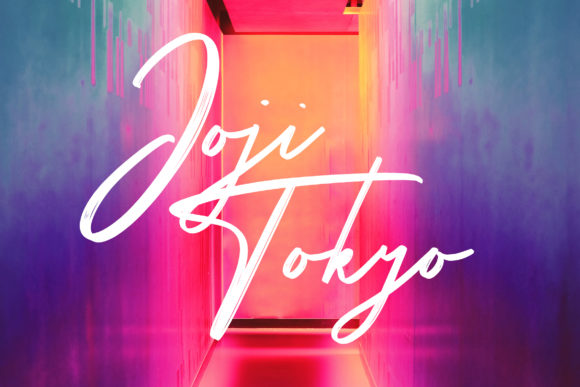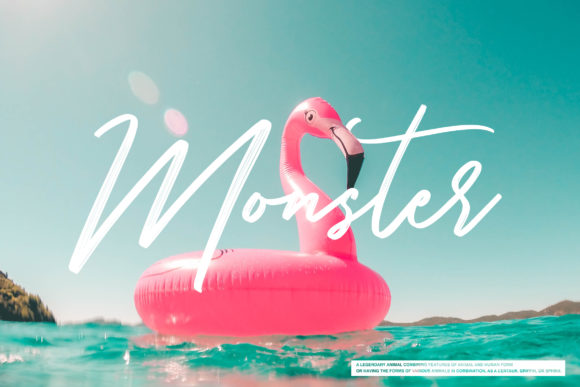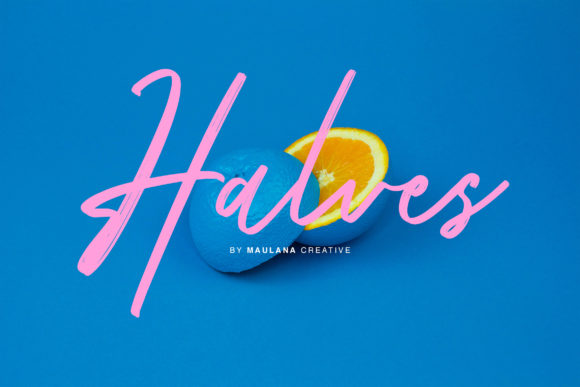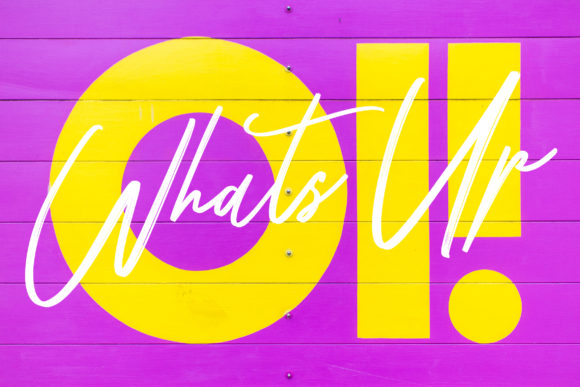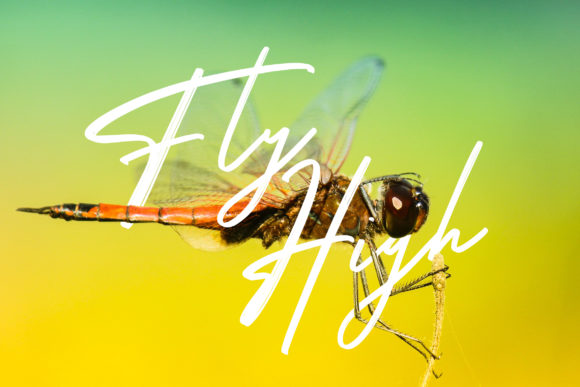
Introduction to Mombay Font
As a designer, there’s nothing quite like the thrill of bringing a creative project to life. You’ve poured your heart and soul into the concept, and it’s finally time to add the finishing touches. But what if you’re struggling to find the perfect font to tie everything together? That’s where Mombay Font comes in – a charming brush font that’s sure to add an undeniable touch of whimsy to your design.
Key Features of Mombay Font
- High-quality typography with a unique blend of modern and vintage elements, perfect for creative projects that require a touch of sophistication.
- Features a transparent background, allowing for seamless integration with any design element or background image.
- Designed with a high resolution of 300 DPI, making it suitable for printing and other high-end applications.
- The Mombay Font family includes multiple weights and styles, providing a range of options for designers to choose from.
- Perfect for use in creative projects such as logos, branding materials, and advertising campaigns, where a unique and eye-catching font is essential.
Honest Review: Mombay Font
I recently stumbled upon the Mombay Font while searching for a unique design resource for a creative project. I was excited to see if it would live up to its promises of high quality and a transparent background.
First impressions: the font is indeed high-quality, with crisp lines and a clean aesthetic. I was able to download it for free, which was a nice bonus. The transparent background was a key selling point for me, as it allowed me to easily incorporate the font into my design without worrying about background distractions.
- ✨ High-quality design with crisp lines and clean aesthetic
- ✨ Transparent background, ideal for creative projects
- ⚠️ Limited character set, may not be suitable for extensive text-based projects
- ⚠️ Not as versatile as some other fonts on the market
Overall, I was impressed with the Mombay Font, but it’s not a game-changer. It’s a solid addition to any designer’s toolkit, but it may not be the best choice for every project. If you’re looking for a unique, high-quality font with a transparent background, the Mombay Font is worth checking out.
Using Mombay Font in Creative Projects
Getting the Most Out of Mombay Font
For optimal results, use the Mombay Font in conjunction with other high-quality design resources. Experiment with different font combinations and styles to create unique and engaging designs.
The Mombay Font is perfect for a variety of creative projects, including:
Business cards, logos, and branding materials
Social media graphics and advertisements
Presentations and reports
Web design and development
Alternatives to Mombay Font
Open Sans is a high-quality, modern sans-serif font perfect for creative projects and design resources. It’s available for free download and comes in a variety of weights and styles. Open Sans is ideal for digital products, web design, and mobile applications.